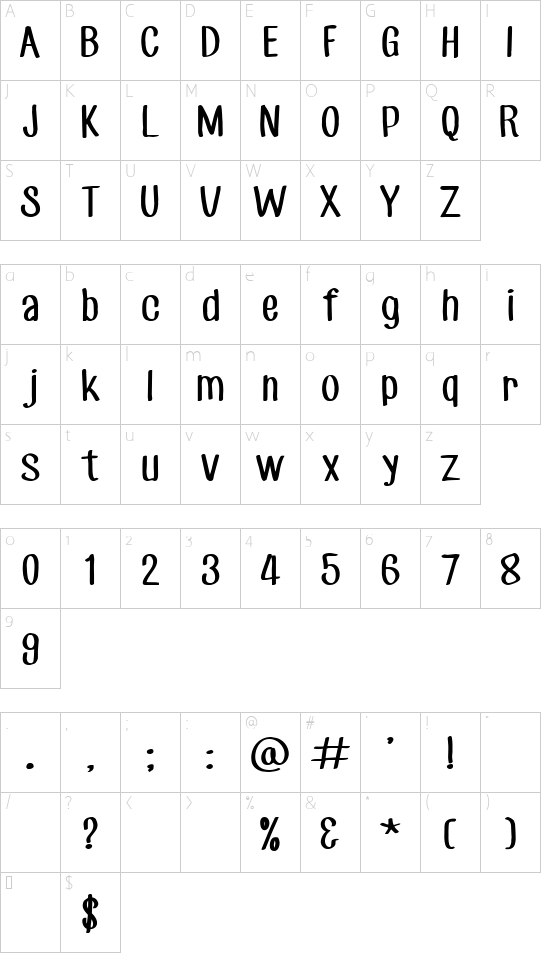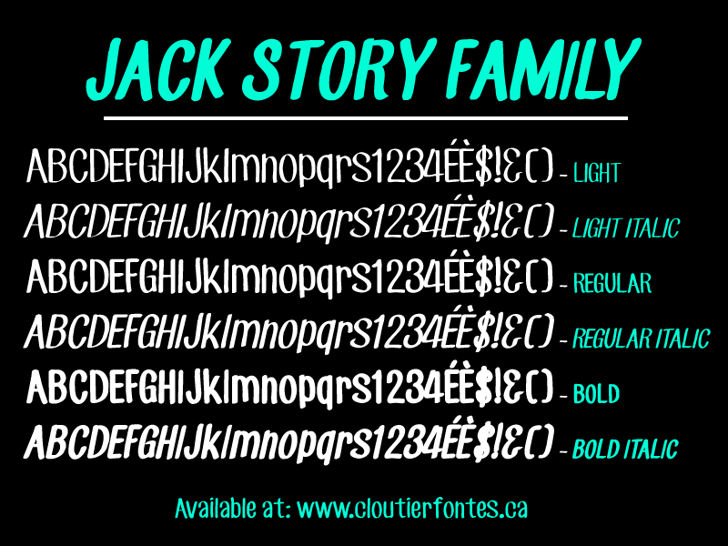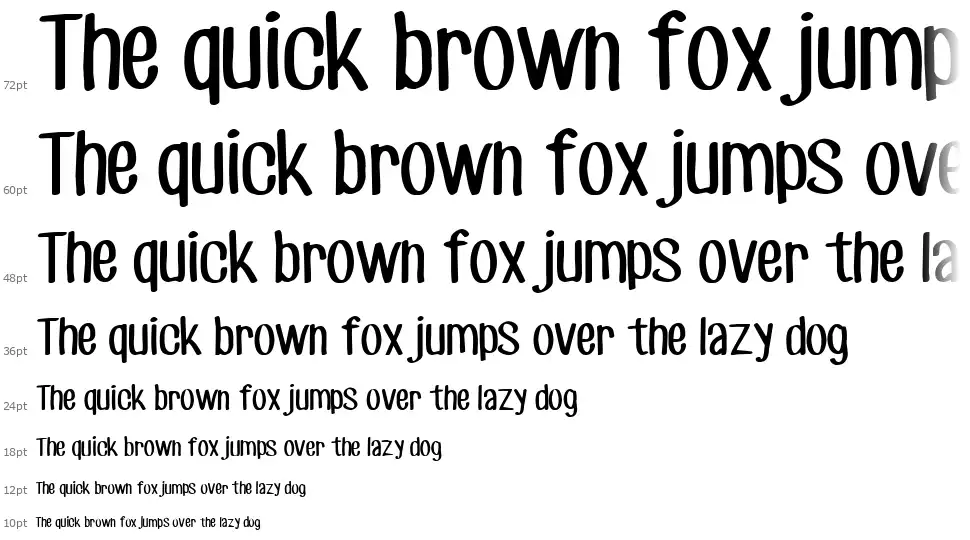
Cf Jack Story Font . 869,841 downloads (7 yesterday) 5 comments free for personal use. Cf jack story by cloutierfontes. Cf jack story is a high quality handwritten font that is designed by cloutierfontes and is available for free download and personal use. Looking for cf jack story font designed by cloutierfontes? Download font free at fontriver. Click here to create a custom image with your own text. Cf jack story regular font free download. ️ this font has been downloaded 3,000+ times. Cf jack story regular is a font by cloutierfontes, designed by steve cloutier in 2013. Download and install the cf jack story regular font for free from ffonts.net. A great choice for highlighting your design elements.
Download and install the cf jack story regular font for free from ffonts.net. Cf jack story regular is a font by cloutierfontes, designed by steve cloutier in 2013. A great choice for highlighting your design elements. Cf jack story by cloutierfontes. Download font free at fontriver. Click here to create a custom image with your own text. Cf jack story regular font free download. Cf jack story is a high quality handwritten font that is designed by cloutierfontes and is available for free download and personal use. Looking for cf jack story font designed by cloutierfontes? 869,841 downloads (7 yesterday) 5 comments free for personal use.
Cf Jack Story Font A great choice for highlighting your design elements. Cf jack story is a high quality handwritten font that is designed by cloutierfontes and is available for free download and personal use. Download font free at fontriver. Click here to create a custom image with your own text. A great choice for highlighting your design elements. ️ this font has been downloaded 3,000+ times. Download and install the cf jack story regular font for free from ffonts.net. Cf jack story regular is a font by cloutierfontes, designed by steve cloutier in 2013. 869,841 downloads (7 yesterday) 5 comments free for personal use. Looking for cf jack story font designed by cloutierfontes? Cf jack story by cloutierfontes. Cf jack story regular font free download.
CF Jack Story Font Cf jack story regular is a font by cloutierfontes, designed by steve cloutier in 2013. Download font free at fontriver. Looking for cf jack story font designed by cloutierfontes? Cf jack story by cloutierfontes. Cf jack story is a high quality handwritten font that is designed by cloutierfontes and is available for free download and personal use. Cf jack story. Cf Jack Story Font.
CF Jack Story Font Cf Jack Story Font A great choice for highlighting your design elements. 869,841 downloads (7 yesterday) 5 comments free for personal use. Looking for cf jack story font designed by cloutierfontes? Download font free at fontriver. Cf jack story regular font free download. Cf jack story by cloutierfontes. Cf jack story is a high quality handwritten font that is designed by cloutierfontes and is. Cf Jack Story Font.
CF Jack Story Regular Download For Free, View Sample Text, Rating And More On Cf Jack Story Font Cf jack story by cloutierfontes. Click here to create a custom image with your own text. Looking for cf jack story font designed by cloutierfontes? Download font free at fontriver. A great choice for highlighting your design elements. Cf jack story is a high quality handwritten font that is designed by cloutierfontes and is available for free download and personal. Cf Jack Story Font.
Cf jack story font free download 169 truetype .ttf opentype .otf files Cf Jack Story Font Cf jack story is a high quality handwritten font that is designed by cloutierfontes and is available for free download and personal use. Cf jack story by cloutierfontes. 869,841 downloads (7 yesterday) 5 comments free for personal use. ️ this font has been downloaded 3,000+ times. Cf jack story regular is a font by cloutierfontes, designed by steve cloutier in. Cf Jack Story Font.
Cf jack story font free download 169 truetype .ttf opentype .otf files Cf Jack Story Font Looking for cf jack story font designed by cloutierfontes? Click here to create a custom image with your own text. Cf jack story regular is a font by cloutierfontes, designed by steve cloutier in 2013. Cf jack story regular font free download. Download font free at fontriver. 869,841 downloads (7 yesterday) 5 comments free for personal use. Cf jack story. Cf Jack Story Font.
CF Jack Story free font Cf Jack Story Font A great choice for highlighting your design elements. Cf jack story by cloutierfontes. ️ this font has been downloaded 3,000+ times. Download and install the cf jack story regular font for free from ffonts.net. Download font free at fontriver. Cf jack story regular font free download. Looking for cf jack story font designed by cloutierfontes? 869,841 downloads (7 yesterday) 5. Cf Jack Story Font.